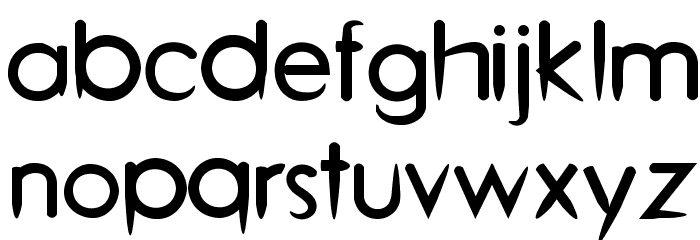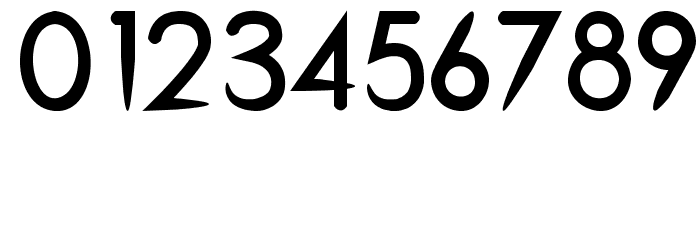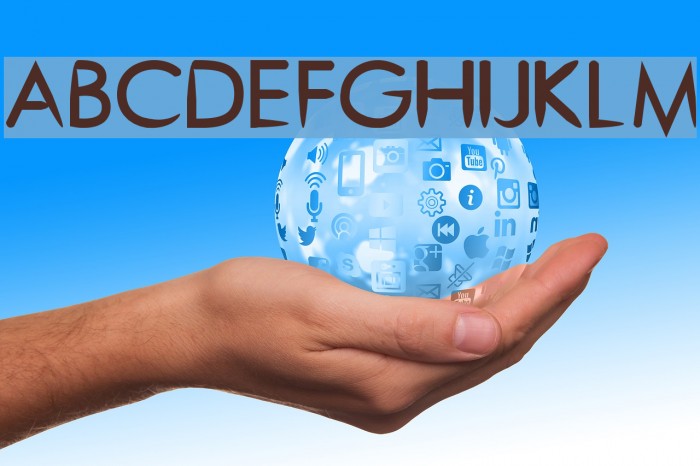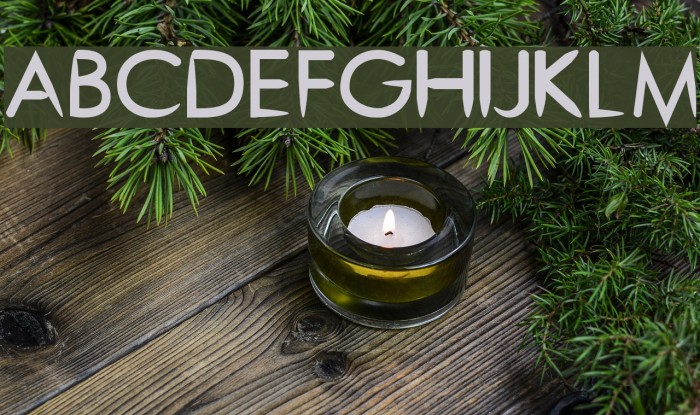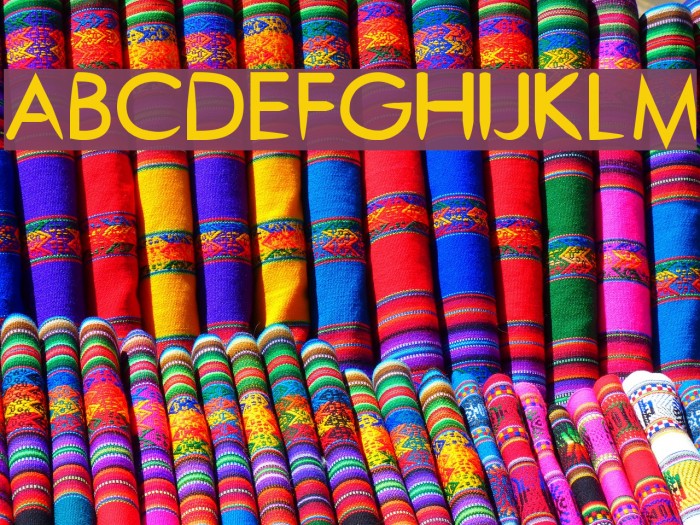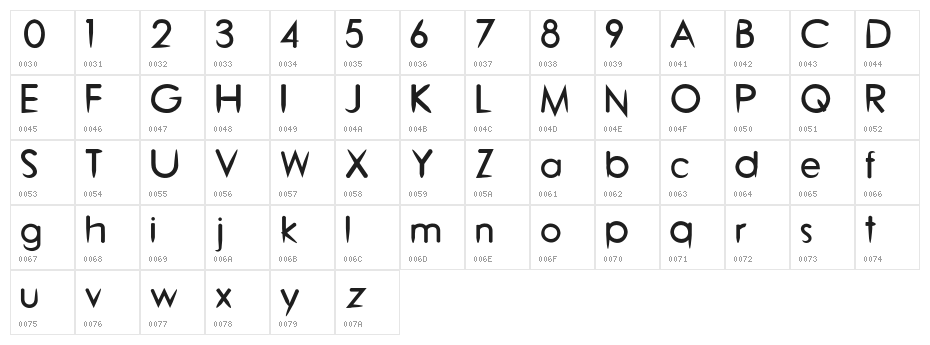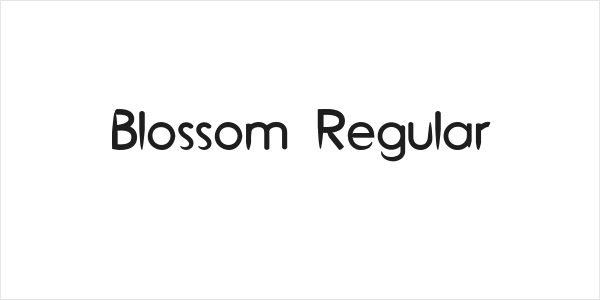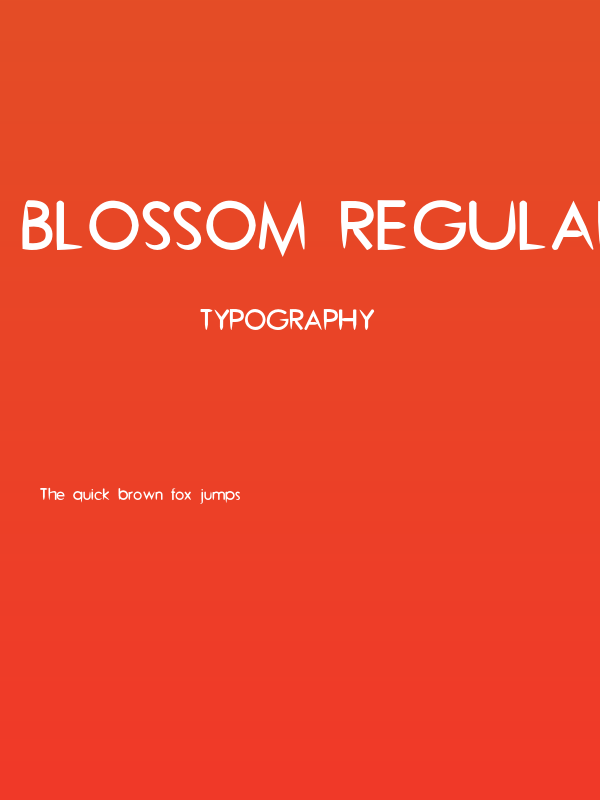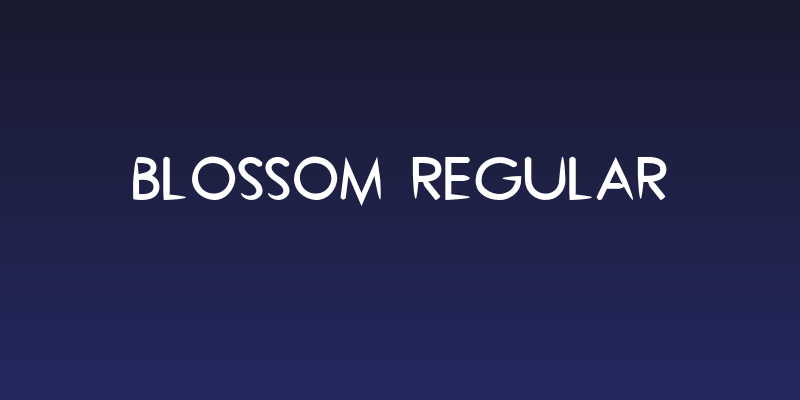
Blossom Regular Font
This font features a playful and whimsical design, characterized by its rounded and slightly exaggerated letterforms. The strokes are smooth and consistent, with a friendly and approachable appearance. The uppercase letters are bold and distinctive, while the lowercase letters maintain a consistent flow, enhancing readability. The numerals are well-proportioned, matching the overall style of the alphabet. This font's unique character is further emphasized by its slightly irregular shapes, giving it a hand-drawn feel. It is suitable for projects that require a touch of creativity and fun.
A playful and whimsical font with rounded, smooth letterforms and a hand-drawn feel.
- Proposed Projects: Ideal for children's books, playful branding, greeting cards, and creative posters.
- Overall Style: Playful